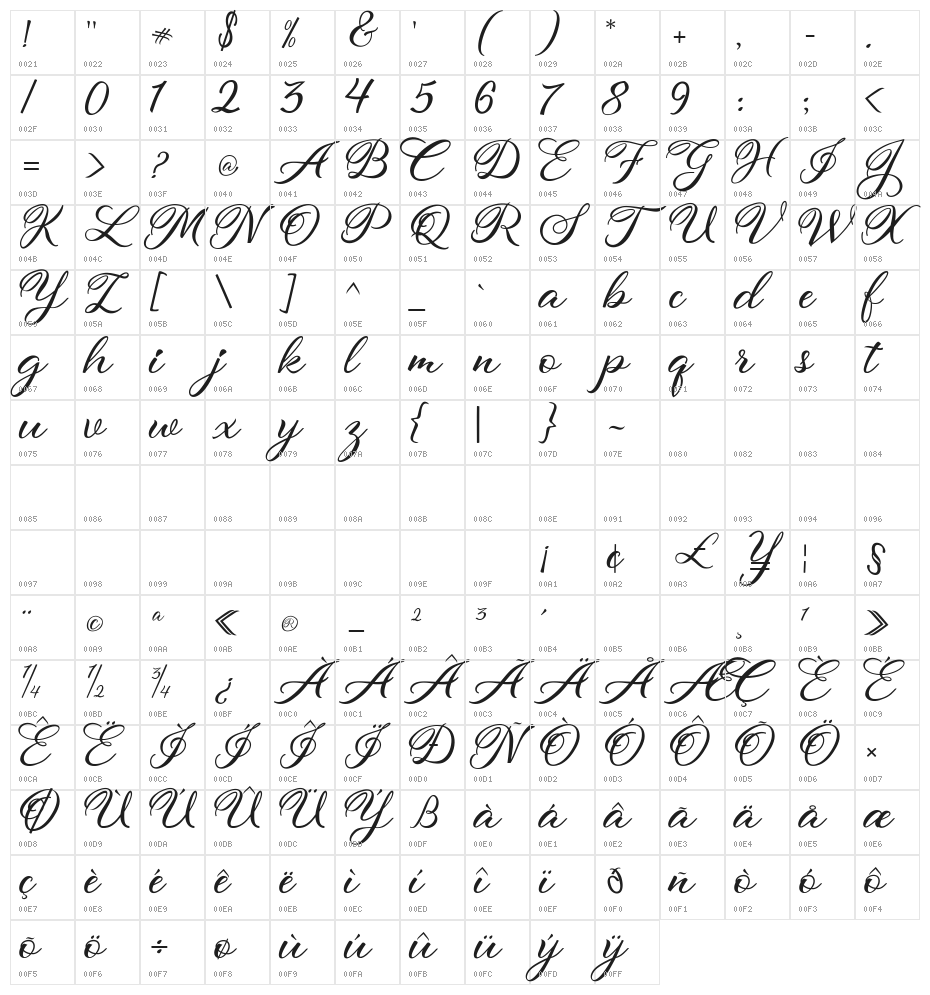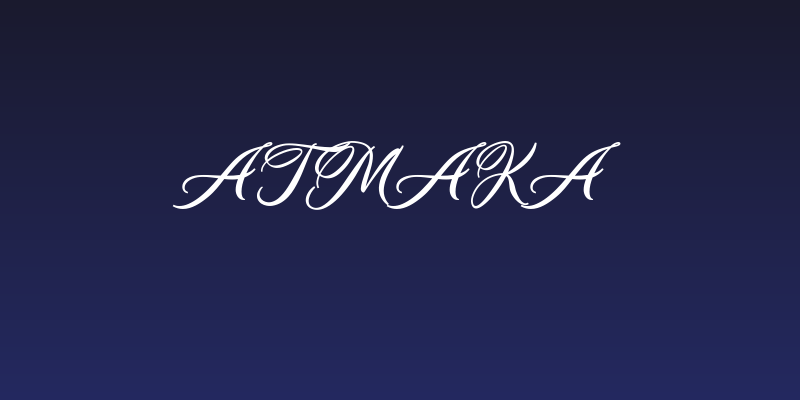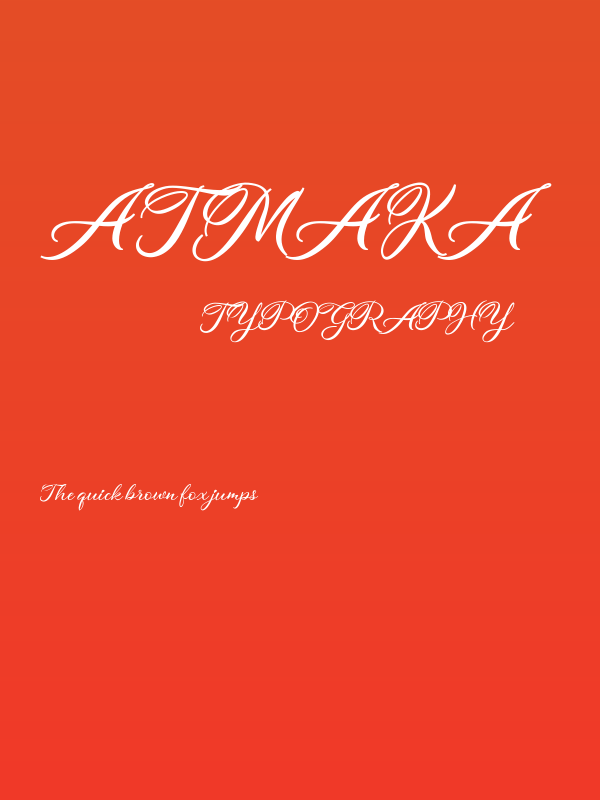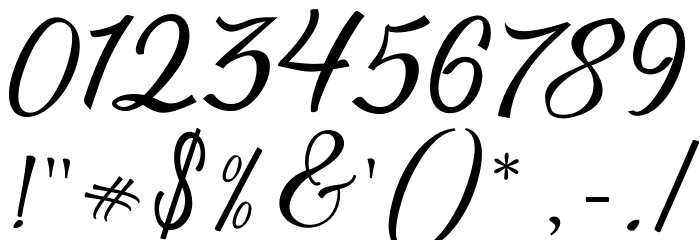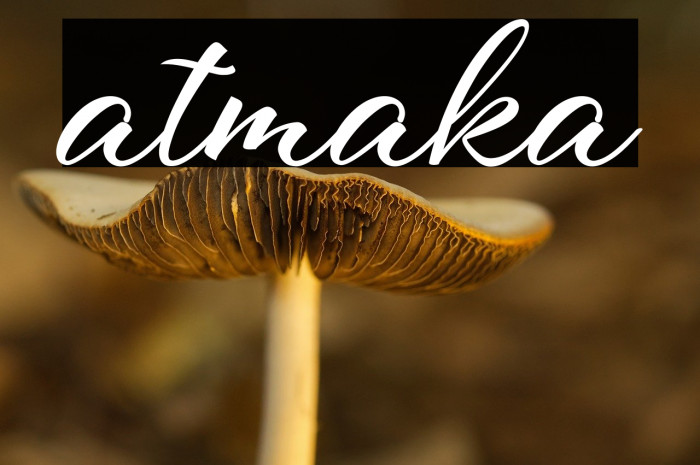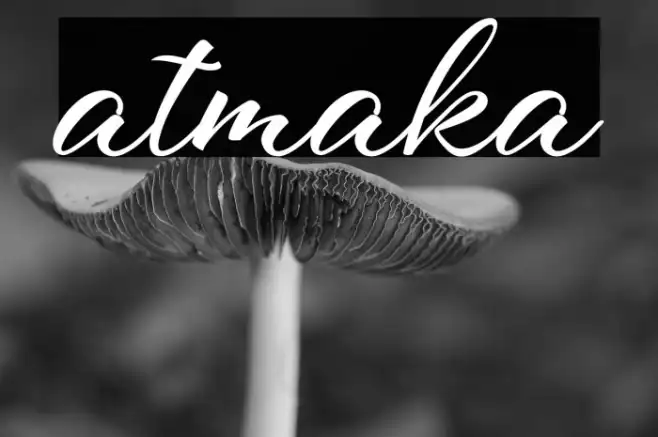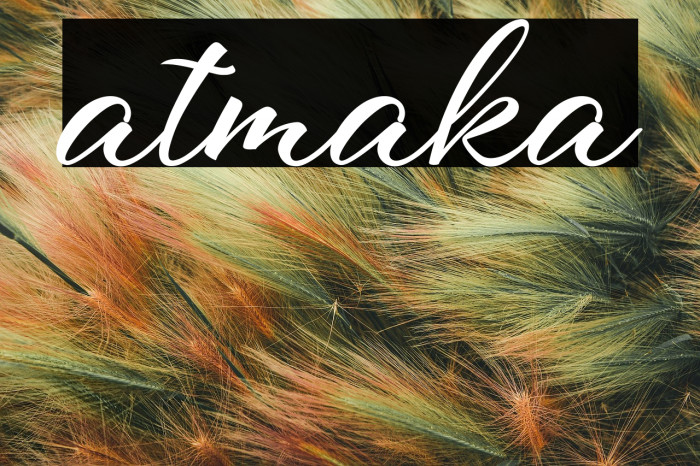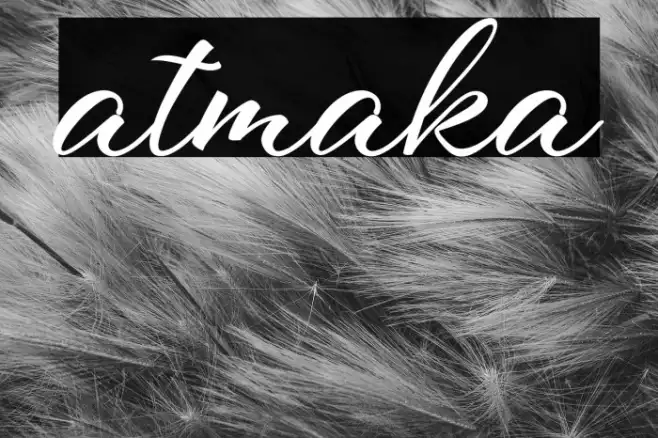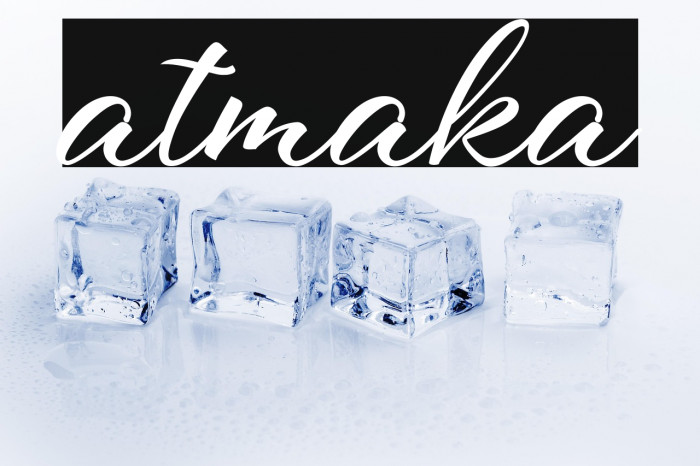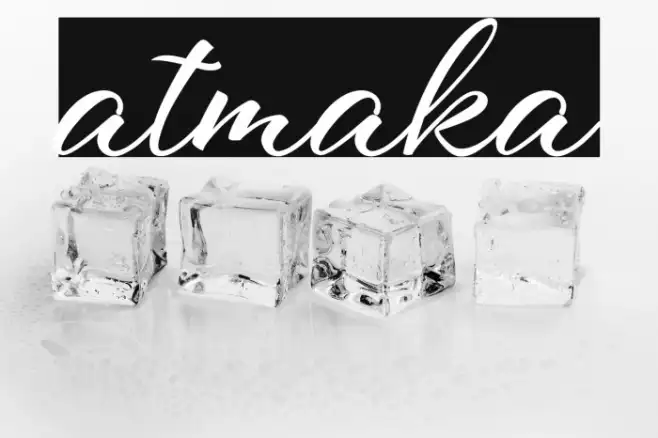
atmaka Font
atmaka Description
This font exudes elegance and sophistication with its flowing, cursive style. The characters are intricately designed, featuring smooth curves and delicate loops that give it a graceful appearance. The uppercase letters are particularly ornate, with elaborate swirls that add a touch of luxury. The lowercase letters maintain a consistent flow, making it ideal for creating a seamless, connected look. The numerals are stylish yet readable, complementing the overall aesthetic. Special characters are thoughtfully crafted, maintaining the font's elegant theme. This font is perfect for projects that require a touch of class and refinement.